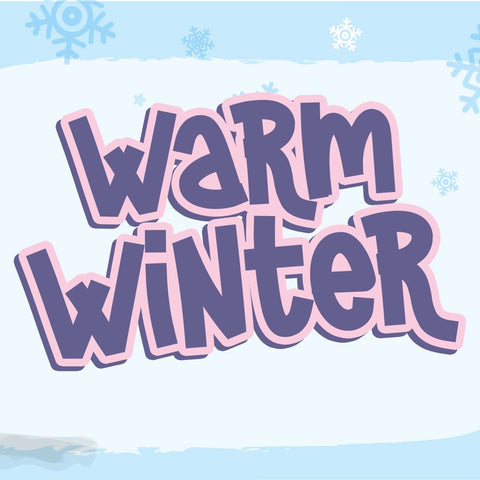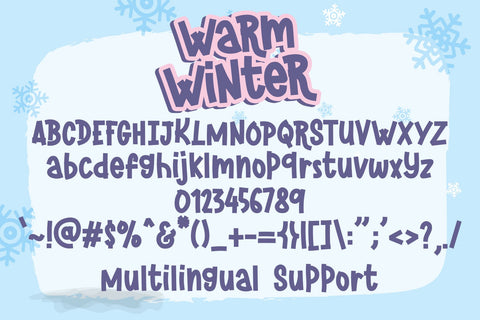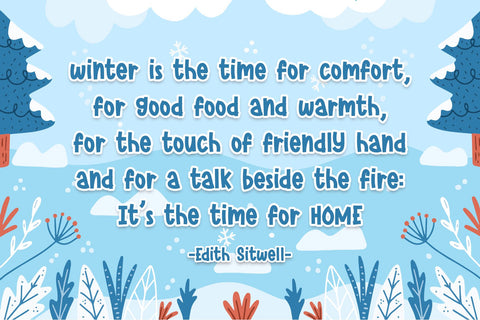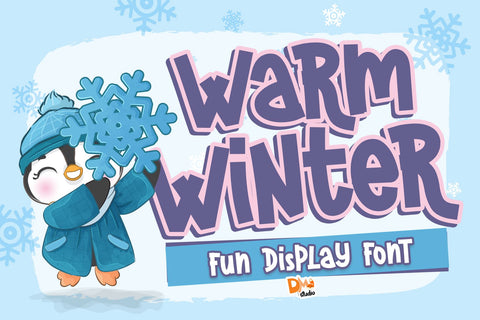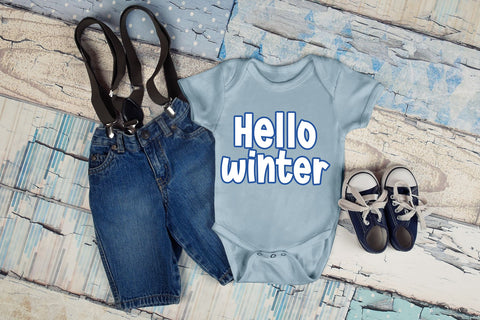
Warm Winter Font
Embrace the cozy and festive spirit with the Warm Winter Font. This typeface is designed to infuse your designs with a warm, inviting, and seasonal feel. Ideal for holiday cards, winter-themed branding, and festive projects, the Warm Winter Font brings a touch of comfort to your typography.
- Cozy and Festive Design: The Warm Winter Font boasts a design that encapsulates the cozy and festive ambiance of winter. Its inviting letterforms create a comforting and seasonal aesthetic.
- Versatility for Winter Projects: Perfect for a range of winter-themed projects, from holiday cards to seasonal branding, adding a touch of warmth to your designs.
- Uppercase and Lowercase Letters: The font includes both uppercase and lowercase letters, offering flexibility and creative freedom in your designs.
- Punctuation and Symbols: A comprehensive set of punctuation marks, numerals, and symbols for consistent and versatile use.